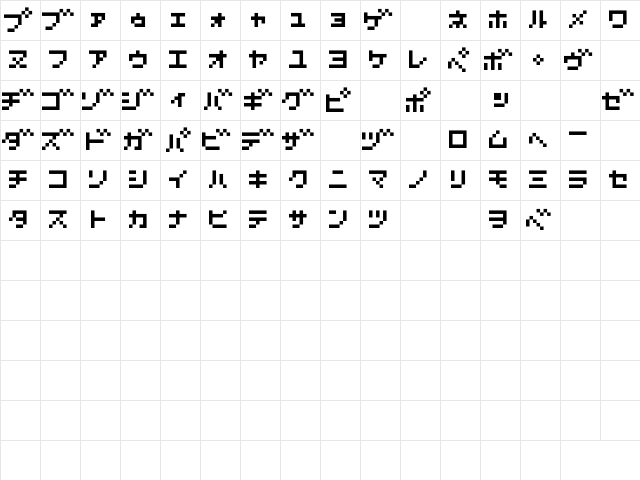
D3 Littlebitmapism Katakana Regular
Design Context for D3 Littlebitmapism Katakana
D3 Littlebitmapism Katakana is rooted in pixel-grid construction, making it a natural fit for game UI, retro computing aesthetics, and digital nostalgia projects.
Pro Tip: Use D3 Littlebitmapism Katakana at sizes that align with its pixel grid for the sharpest rendering - scaling to non-integer multiples can introduce unwanted blur.